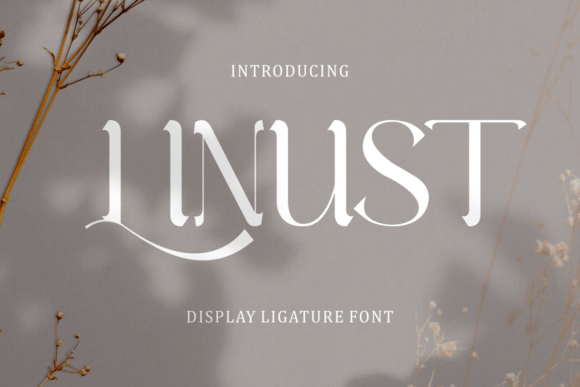
Introducing Linust Font, the epitome of contemporary elegance and versatility! Crafted by the talented putracetol, this stunning font family is designed to captivate and elevate your design projects to new heights.
With its wide range of alternative characters, Linust allows you to create unique and eye-catching designs effortlessly. Whether you're working on a logo, poster, quote, invitation, greeting card, business branding, or product labels, Linust will add a touch of refinement that sets your work apart from the rest.
Imagine the allure of a luxurious and sophisticated typeface, seamlessly blending modern aesthetics with timeless charm. That's exactly what Linust brings to the table. Its sleek curves and impeccable letterforms exude an air of exclusivity, making it the perfect choice for those seeking only the best.
But Linust isn't just a pretty face; it's also a font that speaks to your audience's emotions. Its captivating and artistic elements evoke a sense of wonder and curiosity, drawing people in and leaving a lasting impression.
Unlock endless creativity with Linust Font. Embrace the power of expressive typography and watch as your designs come to life in ways you never thought possible.
Choose Linust Font, the ultimate companion for those who seek perfection and crave to leave a lasting mark on the world. Let your creativity soar and watch as your designs become the talk of the town.